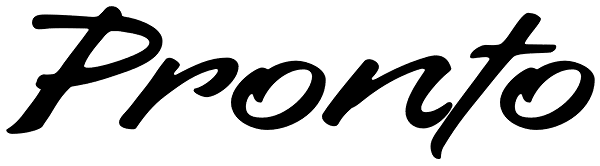
Pronto
Pronto is a fast and breezy calligraphic handwriting font that moves to a timeless beat. Its catchy rhythm and casually artful forms make it a choice font not only for packaging, but also for signs and café bistro boards and menus. Alternative forms...